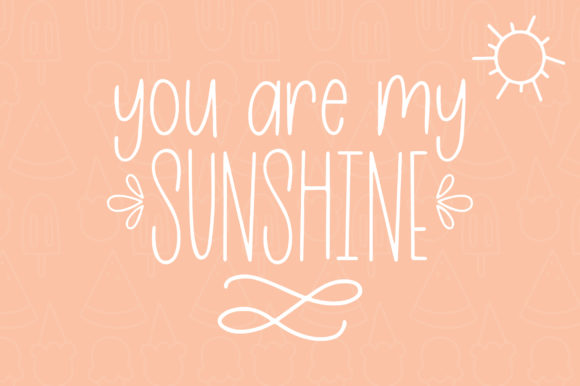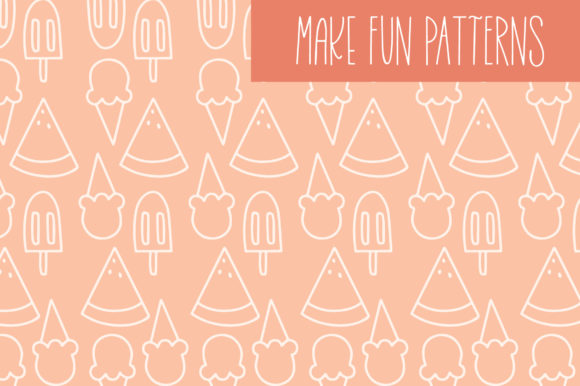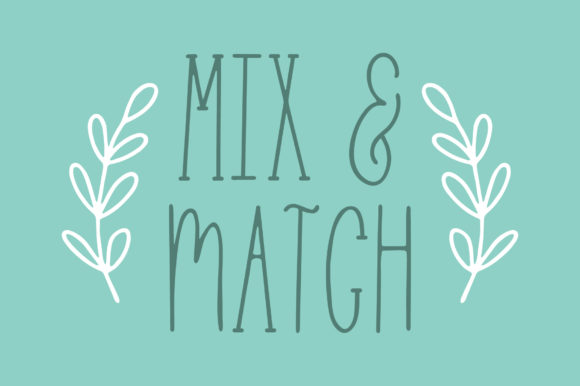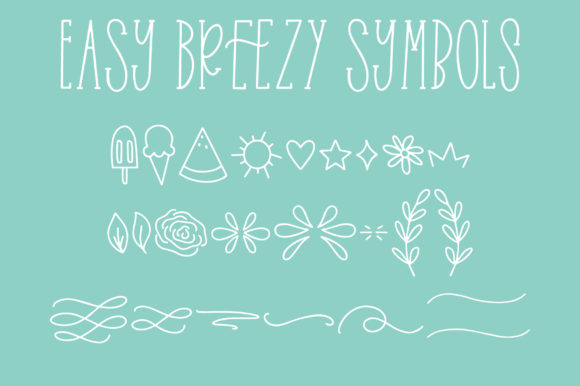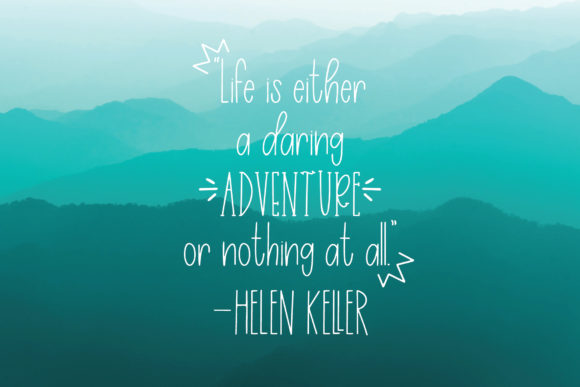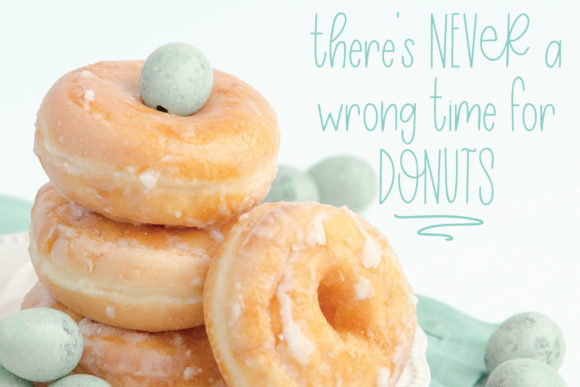
Getting Your Creative Juices Flowing
Have you ever sat at your desk, staring blankly at a blank sheet of paper, waiting for inspiration to strike? It’s a familiar feeling for many creatives, but what if you had the perfect tool to help get those creative juices flowing?
Enter the Easy Breezy Font, a delightful combination of regular, serif, and symbol fonts that will add a modern, light, and warm touch to any project. This versatile font is perfect for designers looking to elevate their branding, covers, or invitations, and its ease of use makes it accessible to creators of all levels.
Easy Breezy Font Key Features
- Unique Characteristics: Features a unique blend of rounded and geometric shapes, creating a friendly and approachable feel
- Font Styles: Includes regular, bold, italic, and bold italic styles for versatility
Easy Breezy Font Review
Overall, I think the Easy Breezy Font is a solid choice for designers looking for a friendly and approachable typeface. Here are a few things that really work well: ✨
- The font’s organic feel and rounded edges give it a playful, approachable vibe that’s perfect for design projects targeting a younger audience.
- The font is highly legible, making it a great choice for body text and other large blocks of content.
- The font family includes a wide range of weights and styles, giving designers plenty of flexibility to customize their designs.
However, there are a few limitations to keep in mind: ⚠️
- The font may not be suitable for formal or professional design projects, as it has a more casual, laid-back feel.
- The font’s rounded edges can sometimes make it difficult to read at very small sizes.
In general, I think the Easy Breezy Font is a great choice for designers who want a friendly, approachable typeface that’s easy to read and customize. Just be sure to keep its limitations in mind and use it in the right context.
For the most effective use of the Easy Breezy font, consider the following tips:
– Use it for headings and titles to create a clean and modern look.
– Pair it with a serif font for body text to create a balanced design.
– Experiment with different font sizes and colors to add visual interest.
– Social media graphics and advertising
– Blog posts and articles
– Business cards and marketing materials
Carolyna Pro Font is a elegant and sophisticated script font that is perfect for creating a luxurious and high-end atmosphere. It’s ideal for use in designs that require a sense of glamour and sophistication, such as fashion magazines, luxury brand logos, and high-end event invitations.
Compared to Easy Breezy Font, Carolyna Pro Font has a more refined and polished look, making it suitable for a wider range of high-end designs. While Easy Breezy Font is more playful and fun, Carolyna Pro Font is more sophisticated and elegant.
Are there any font weight or style limitations in the Easy Breezy Font?
The Easy Breezy Font includes a range of font weights (Light, Regular, Bold, and Extra Bold) and styles (Italic and Regular). However, it does not include condensed or extended font variations. If you require these features, please contact the font developer for custom solutions or recommendations.